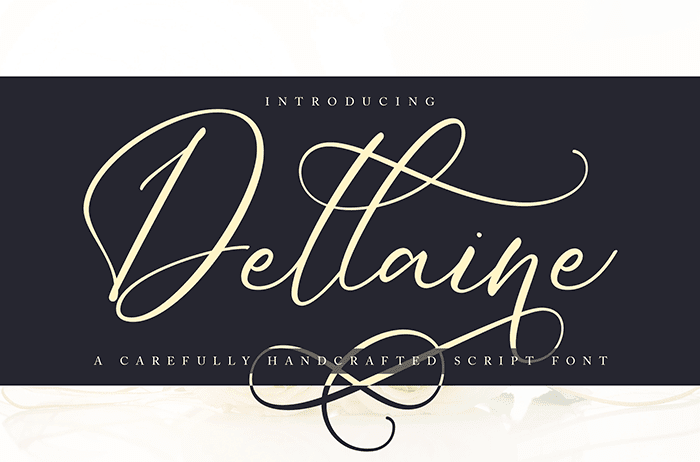
Dellaine Script Font
Dellaine is a magical script font carefully created with a touch of elegance. It features an incredibly classic style, while still keeping a friendly feel. Dellaine is the perfect font for making original and outstanding designs. Thanks to Vunira for sharing this font. This font free for personal use only, if you need commercial use and full version please download in here.